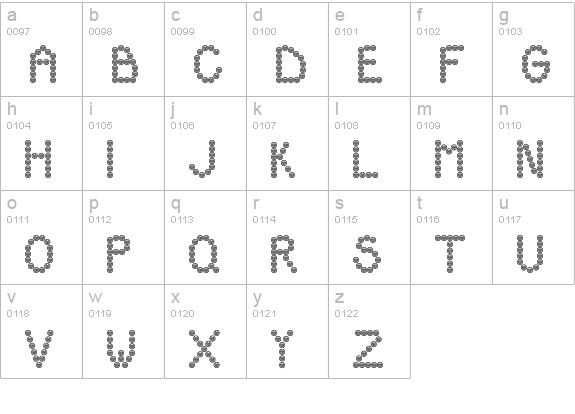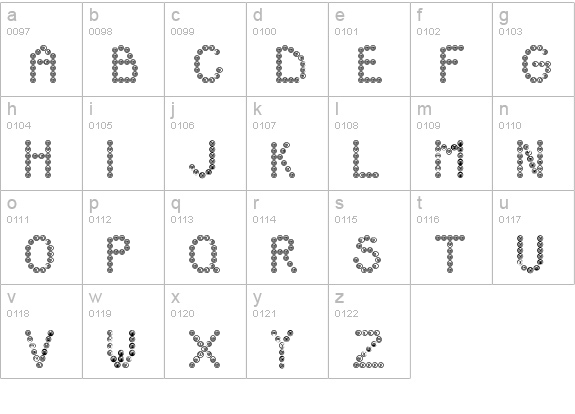
Hooters font is a bold and playful typeface that exudes a sense of fun and energy. With its distinctive curves and quirky details, this font is perfect for adding a touch of whimsy to any design project. Whether you're creating posters, logos, or social media graphics, Hooters font will make your text stand out in style. The best part? Hooters font is available for free download at FontsMarket.com, making it easily accessible for designers and creatives looking to add a unique and eye-catching element to their work. Embrace the playful spirit of Hooters font and let your creativity soar with this charming and versatile typeface.